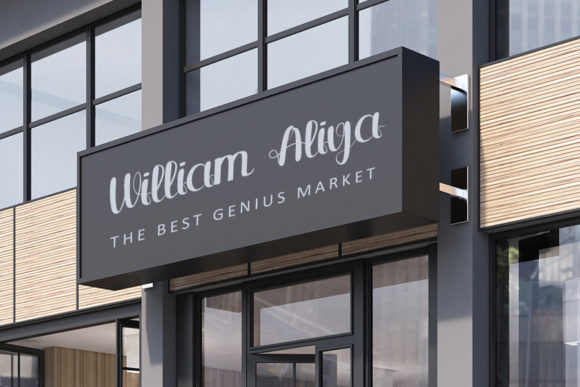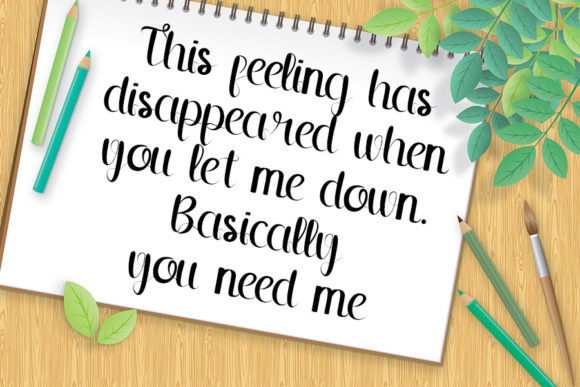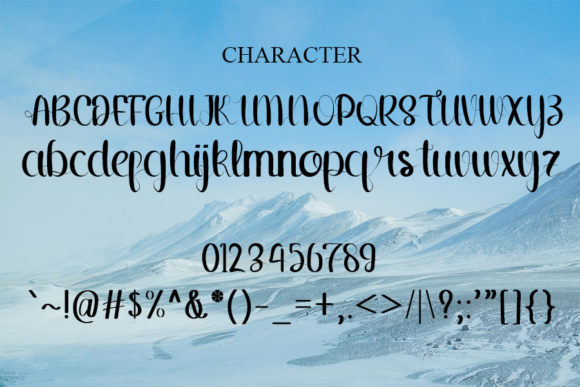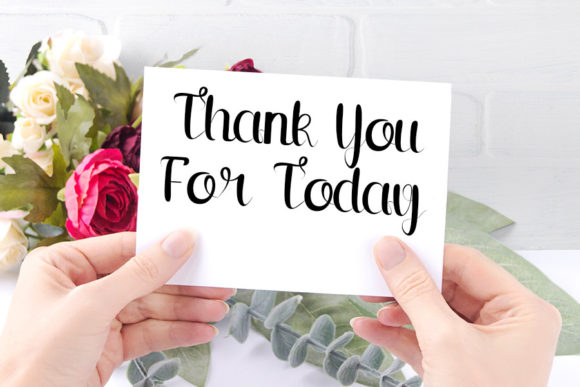
Sweety Candy Font
About Sweety Candy Font
Sweety Candy is a charming and timeless handwritten font that adds a touch of sweetness and playfulness to your designs. With its unique and beautiful letterforms, this font is an excellent choice for creating eye-catching logos, branding materials, and quotes that demand attention.
The fluid strokes and intricate details of Sweety Candy give it a delightful and authentic handwritten feel. Whether you’re designing for a candy shop, a children’s brand, or any project that requires a touch of whimsy, this font will bring your design to life.
Sweety Candy is versatile and works well in various design contexts. Its legibility and readability make it suitable for both print and digital applications. Whether you’re creating posters, packaging, social media graphics, or any other visual content, this font will add a playful and inviting vibe.
With Sweety Candy, you have the freedom to explore different design possibilities. Each letter is crafted with care, offering a unique and charming touch. Let your creativity shine by incorporating Sweety Candy into your projects and watch as it brings a dose of joy and personality to your designs.